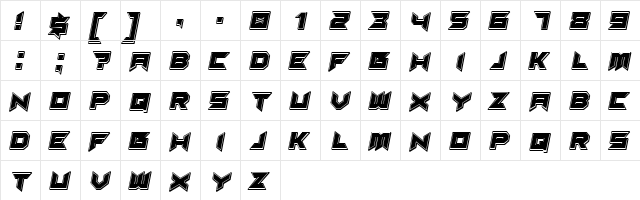
Suggested 3D Filled Italic
Design Context for Suggested 3D Filled Typeface
Suggested 3D Filled is a composed and adaptable typeface that performs quietly and consistently across a wide range of design contexts. The slanted form adds forward momentum and visual energy.
Pro Tip: Try Suggested 3D Filled for annotation and caption copy alongside an upright companion — the contrast in angle creates a dynamic but ordered typographic system.